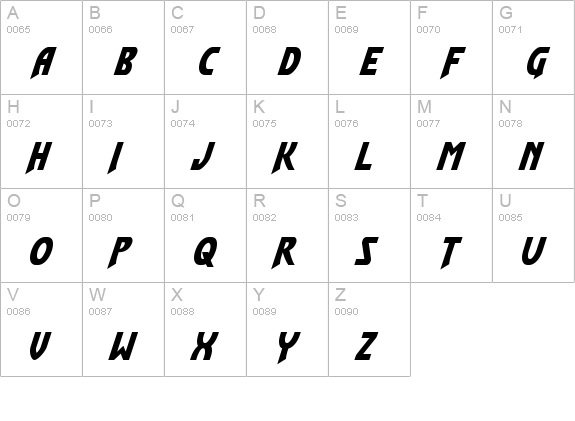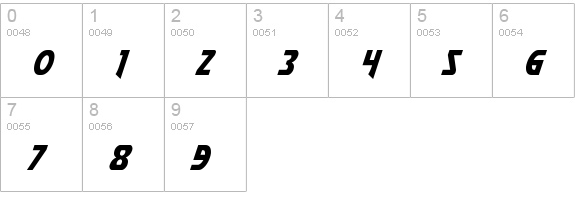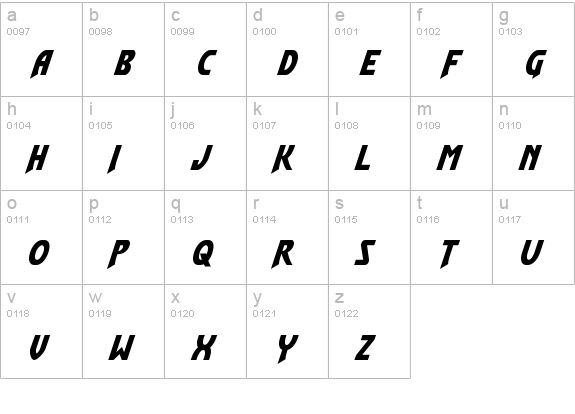
Flash Rogers Font Details
Flash Rogers font is a dynamic and bold typeface that exudes energy and modernity. Its sleek lines and sharp edges make it perfect for designs that need a touch of futuristic flair. Whether you're working on a tech-related project, a sports campaign, or a contemporary branding concept, Flash Rogers font will bring a sense of speed and innovation to your work.